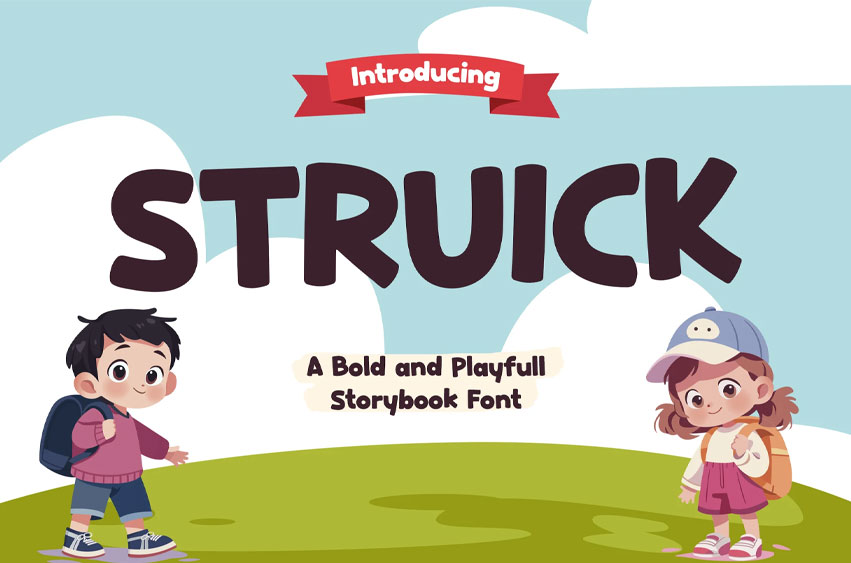
Struick Book Font is a playful kids display typeface for cheerful storytelling, designed with rounded shapes, bold strokes, and a bouncy baseline that creates a lively and approachable rhythm. Its fun, friendly, and energetic vibe fits perfectly within kids branding, educational content, and social media visuals, while the smooth, chunky letterforms ensure high readability and visual charm.
Created for children’s books, toy packaging, greeting cards, and playful branding, Struick helps designers build visuals that feel joyful, approachable, and full of personality. Whether you’re crafting a storybook cover, kids app UI, or product packaging, this typeface supports a friendly tone that connects emotionally with young audiences and families.
• Playful & Friendly Style
• Rounded letterforms with soft edges and bold presence
• Bouncy baseline for a dynamic, cheerful look
• Expressive shapes that feel fun and engaging
• Supports 67 languages for wider global usability
• Ideal for international kids brands and publishing
• Designed for Kids Content
• Perfect for storybook titles, educational materials, and toys
• Enhances playful and imaginative design themes
• Versatile Creative Use
• Works across branding, packaging, posters, and social media
• Maintains clarity in both print and digital formats